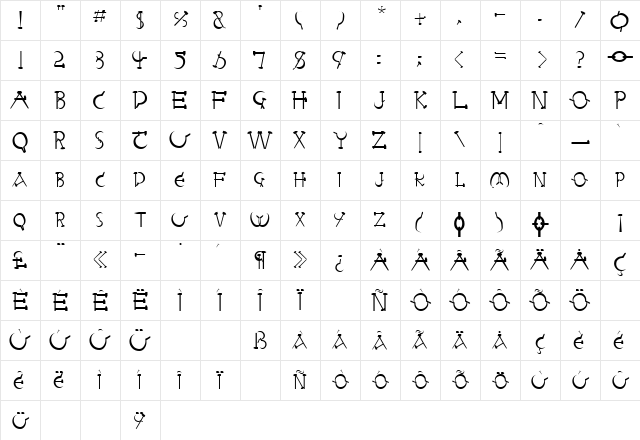
Red Regular Free Font
Red Regular
Design Context for Red
Red is a composed and adaptable typeface that performs quietly and consistently across a wide range of design contexts.